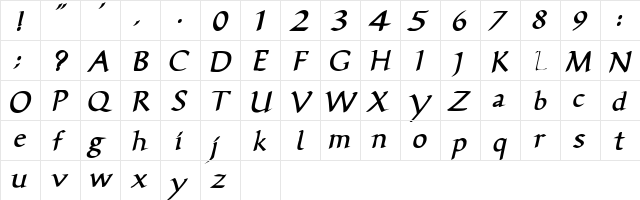
ViciSSK BoldItalic Font Preview
ViciSSK BoldItalic
Design Context for ViciSSK Typeface
ViciSSK is a composed and adaptable typeface that performs quietly and consistently across a wide range of design contexts. The dynamic lean of this cut emphasises speed and emphasis in any layout. Its bold stroke weight gives it real presence on the page.
Pro Tip: Use ViciSSK for emphasis, pull quotes, and subheadings where its slanted energy can add rhythm to the layout.